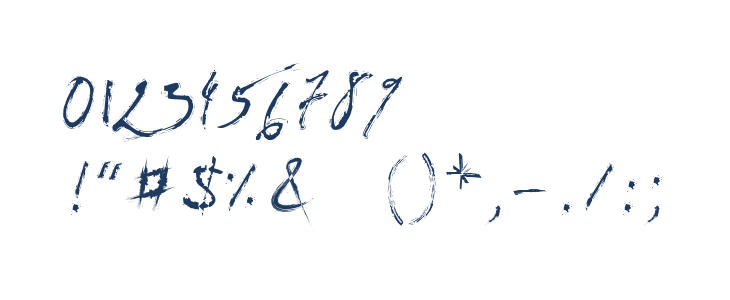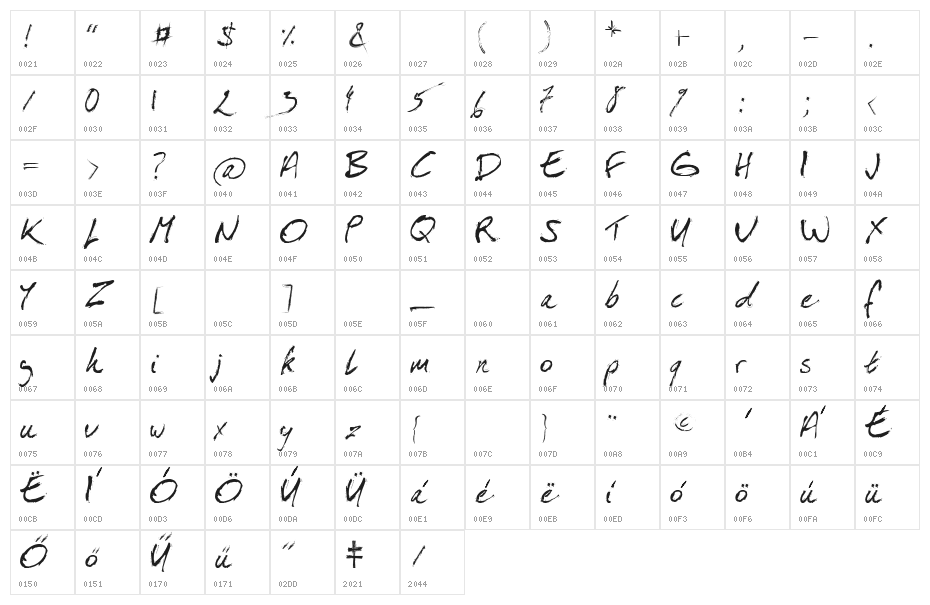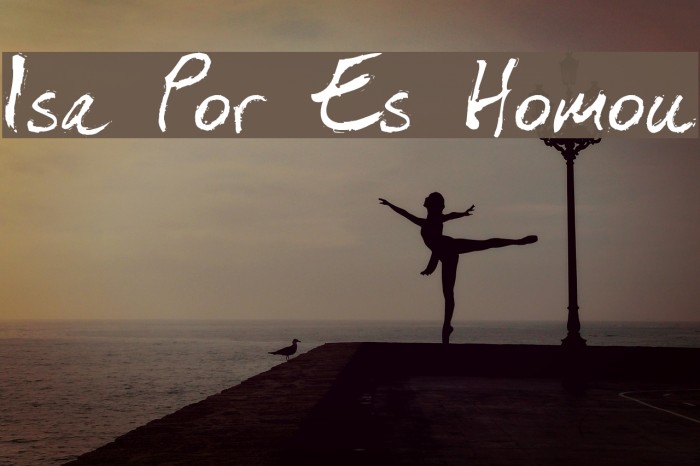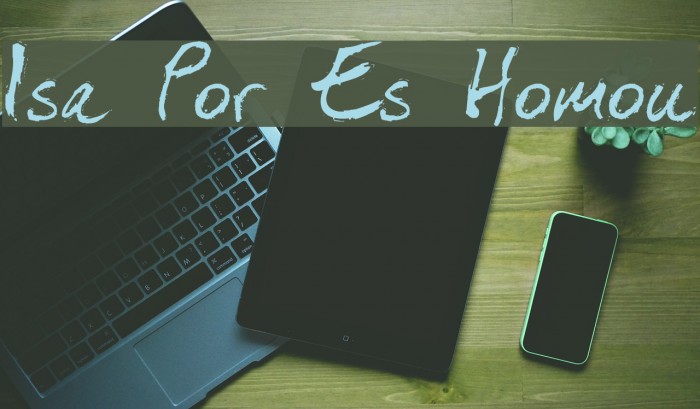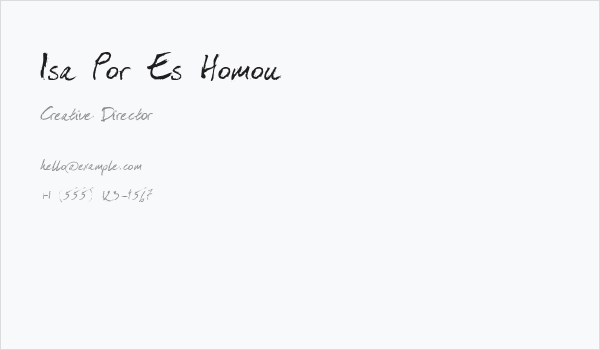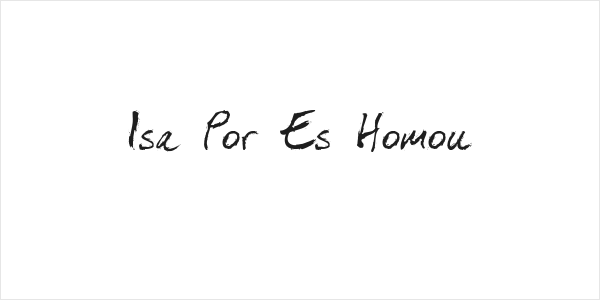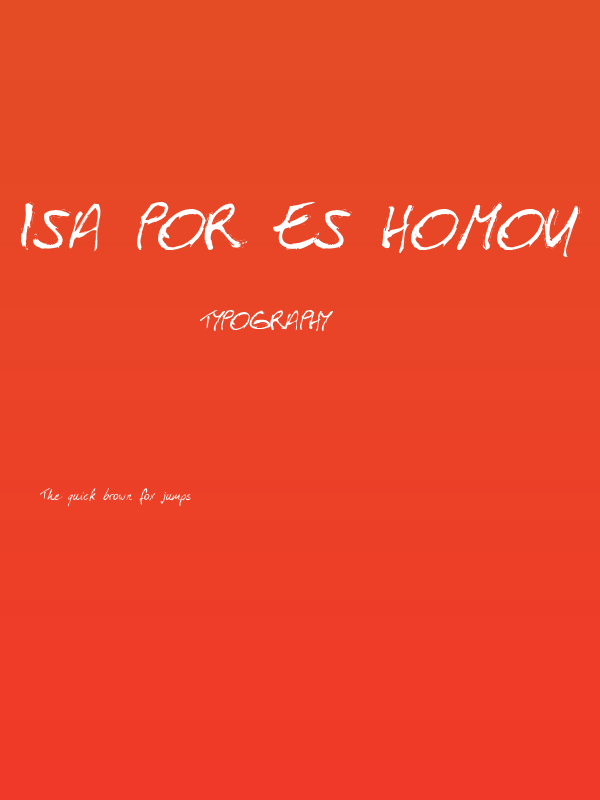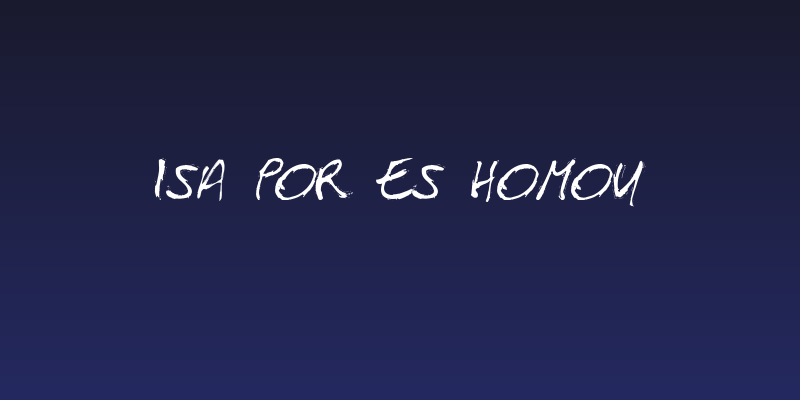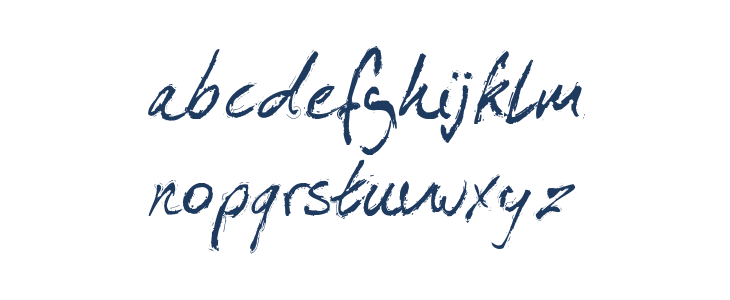
Isa Por Es Homou Font
Isa Por Es Homou Description
This font features a dynamic and expressive handwritten style, characterized by its bold and energetic brush strokes. The letters exhibit a natural flow with varying thickness, creating a sense of movement and spontaneity. The uppercase and lowercase letters maintain a consistent style, while the numbers and special characters complement the overall aesthetic. The font's rough edges and irregularities add to its charm, making it ideal for projects that require a personal and artistic touch.
| Proposed Projects | Ideal for artistic projects, branding, posters, and invitations that require a personal touch. |